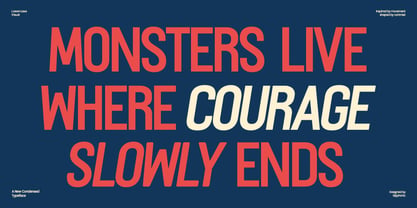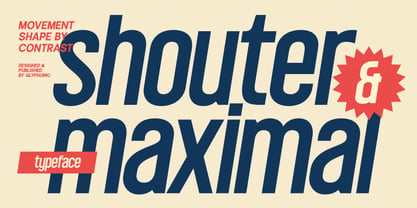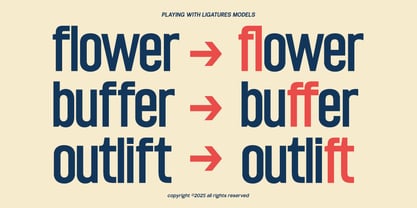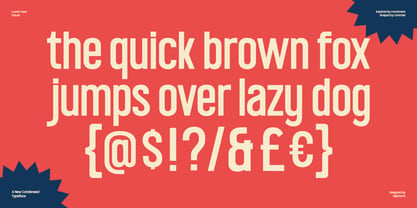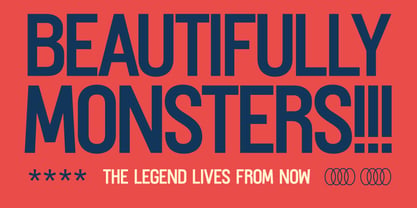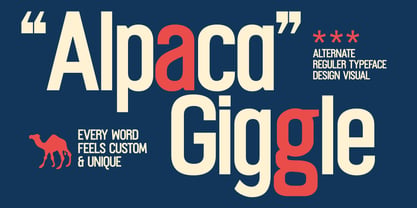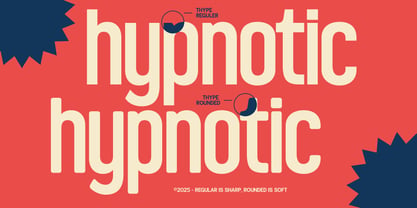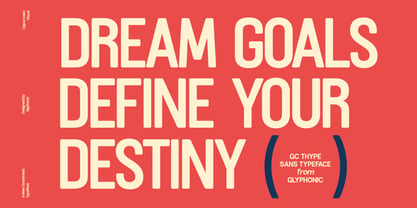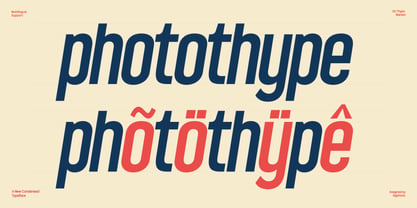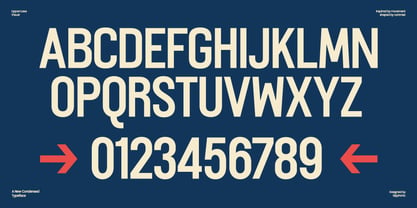
GC Thype
The GC Thype Font Family was designed by Muhammad Hafiizh Solana and published by Onyx Studio. GC Thype contains 4 styles and family package options. More about this family
GC Thype is a new condensed display sans-serif typeface that blends modern minimalism with bold visual impact. Perfectly suited for headlines, branding, posters, logos, packaging, and editorial layouts, it’s crafted to leave a lasting impression.
With its tight spacing, tall letterforms, sharp terminals, and clean geometric lines, GC Thype brings personality and a contemporary edge to any design. Whether you're designing for fashion, streetwear, technology, or creative visuals, this typeface offers striking style and high-impact readability.
Features:
• Uppercase & Lowercase
• Ligatures & Stylistic Alternates
• Numbers & Punctuation
• Multilingual Support